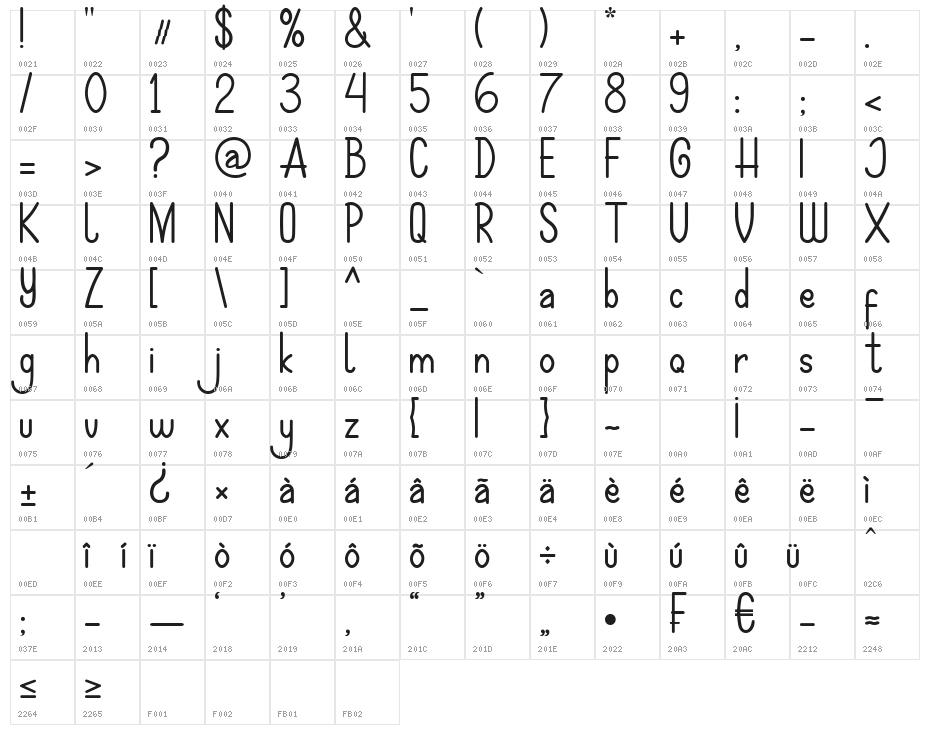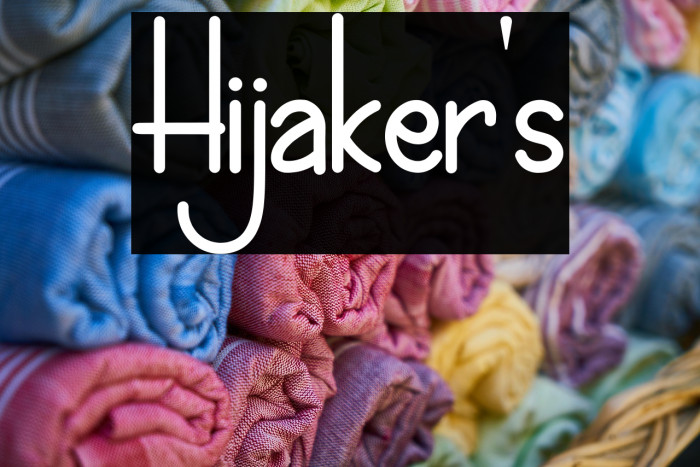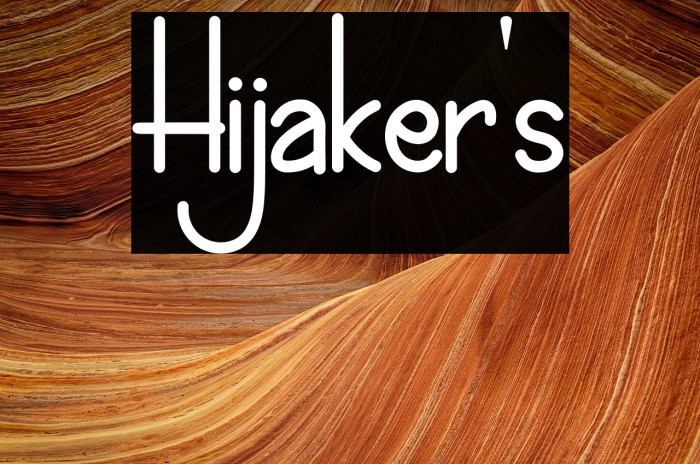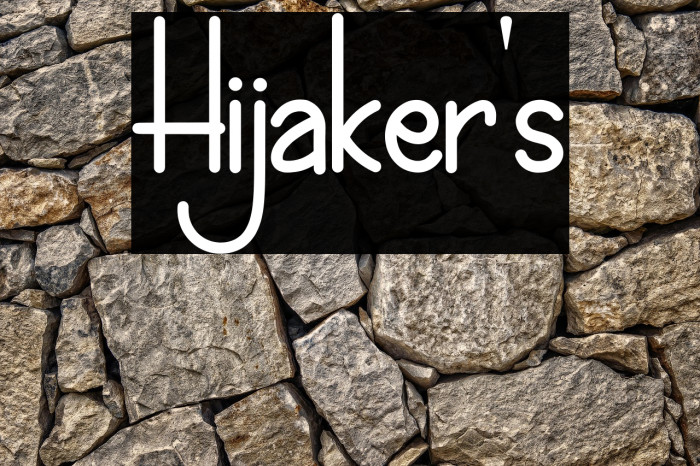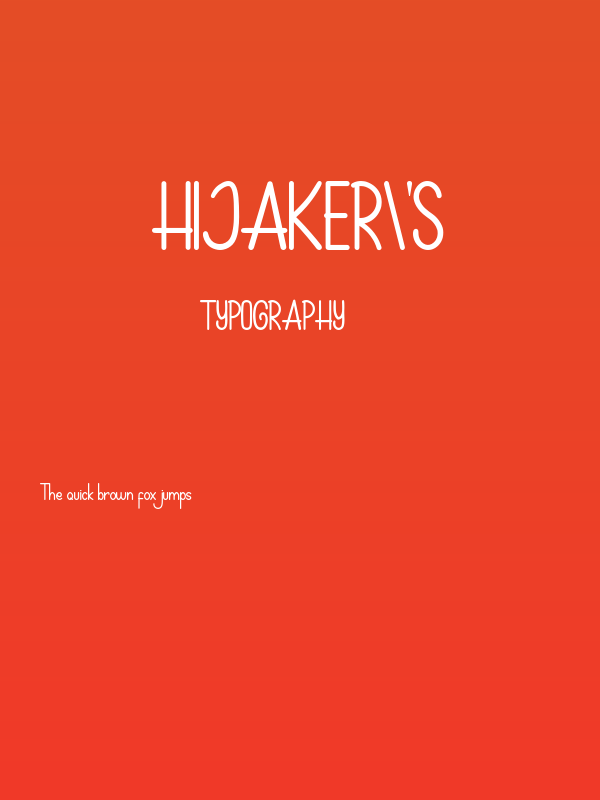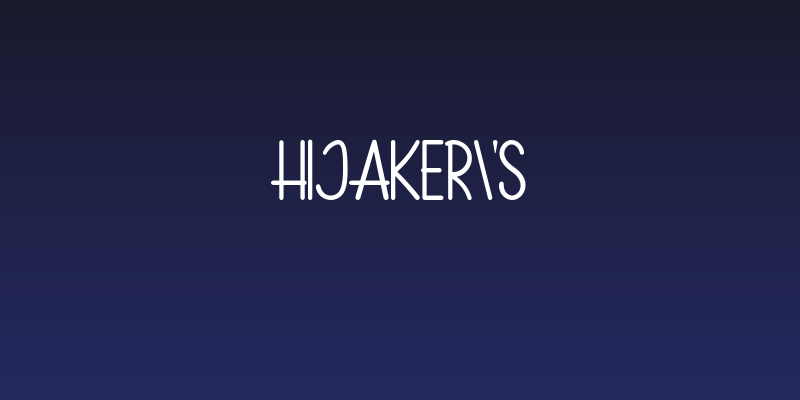
Hijaker's Font
Hijaker's Description
This font features a playful and modern style with a handwritten feel. The characters are tall and narrow, with rounded edges and a consistent stroke width that gives it a clean appearance. The uppercase letters are slightly taller than the lowercase, maintaining a uniform height across the alphabet. Numbers and special characters are designed to match the overall aesthetic, with a quirky and approachable look. The font's simplicity and legibility make it suitable for various design projects, adding a touch of personality without compromising readability.
| Use Case | Headlines, Logos, Casual Text |
| Proposed Projects | Ideal for children's books, playful branding, casual invitations, and social media graphics. |